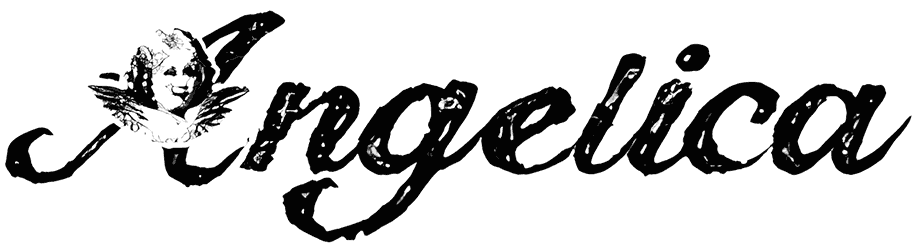
Angelica Font
What can be more fun than a design with calligraphy and cute terms? As an angel font, Angelica with a decorative face is an incredible apprise for your inventions, including greeting cards, invitations, posters, album covers, and much more.
One thing you should consider in using this miracle is that it lacks numbers. A vast range of lovely fonts in the RB would exceed all of your imagination, so never pause to check out our library!